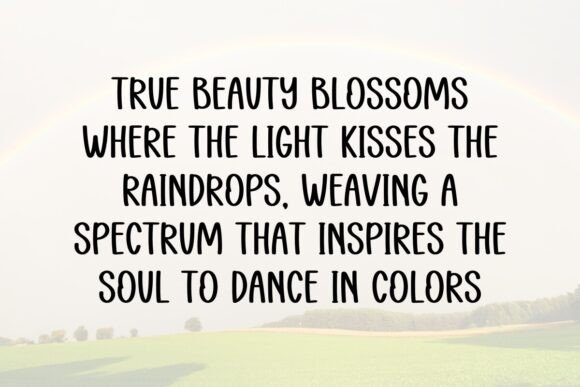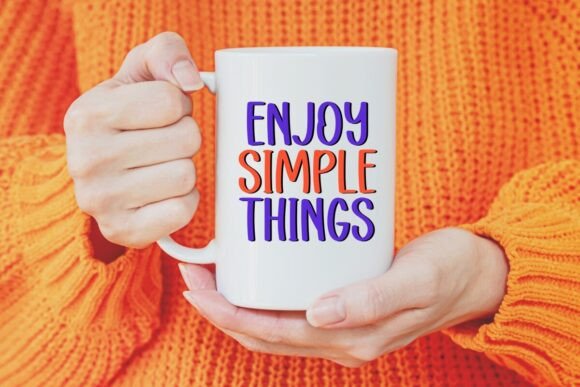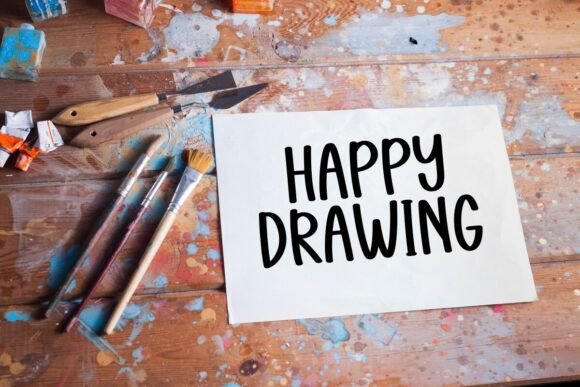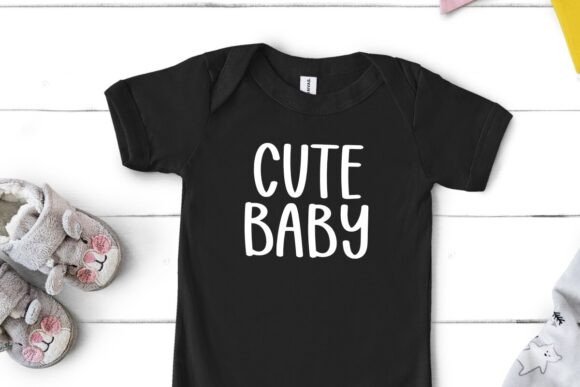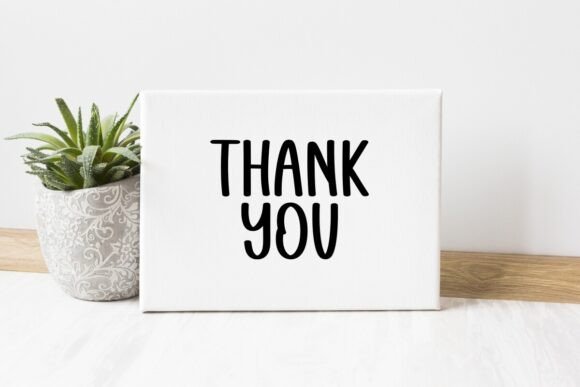
Creating a Masterpiece with the Drawing Rainbow Font
Have you ever been working on a design project, pouring your heart and soul into every detail, when suddenly, a spark of creativity hits you? You envision a beautiful, eye-catching font that perfectly captures the essence of your project. This is exactly what happens when designers discover the enchanting Drawing Rainbow Font.
This charming sans serif font is not just a pretty face; it’s a powerful tool that can elevate your designs to new heights. With its elegant touch and timeless style, the Drawing Rainbow Font is perfect for adding a pop of personality to your projects. Whether you’re creating graphics, logos, or even writing a love letter, this font is sure to make your work stand out from the crowd.
Drawing Rainbow Font Key Features
- Unique Characteristics: Features a colorful, hand-drawn design with a whimsical touch, making it perfect for creative and artistic projects.
- Language Support: Supports a wide range of languages, including Latin, Cyrillic, and Greek alphabets, with over 200 glyphs.
Review of “Drawing Rainbow Font”
Overall, I’m really loving the whimsical and playful vibe of the “Drawing Rainbow Font”. ✨ It’s perfect for adding a pop of color and fun to any design project. The font’s irregular, hand-drawn feel gives it a unique and creative touch that’s sure to stand out.
- The font’s rainbow color scheme is incredibly versatile and can be used in a variety of design contexts, from children’s books to social media graphics.
- The font’s bold and playful feel makes it perfect for headings and titles, adding a fun and eye-catching element to any design.
- The font’s irregularities and imperfections give it a hand-drawn feel that’s perfect for adding a personal touch to designs.
- ⚠️ The font may be too playful or childish for certain design contexts, such as corporate or professional branding.
- ⚠️ The font’s irregularities and imperfections may make it difficult to read in certain situations, such as in small text sizes or at a distance.
Overall, I’d give the “Drawing Rainbow Font” 4 out of 5 stars. While it may not be suitable for every design project, it’s a great choice for anyone looking to add a playful and creative touch to their designs.
Practical Application Guide: Drawing Rainbow Font
Some tips for getting the most out of drawing a rainbow font include:
- Experiment with different font styles and colors to create a unique look.
- Use the rainbow font to add visual interest to your text, such as in titles or headings.
- Consider using a gradient effect to create a smooth transition between colors.
Common use cases for drawing a rainbow font include:
- Celebrating a special occasion, such as a birthday or graduation.
- Adding a touch of whimsy to your branding or marketing materials.
Alternatives to Drawing Rainbow Font for Designers
1. Glitch Text
Glitch Text is a creative font style that mimics the appearance of distorted or corrupted digital text. It’s perfect for designs that require a retro-futuristic or cyberpunk aesthetic.